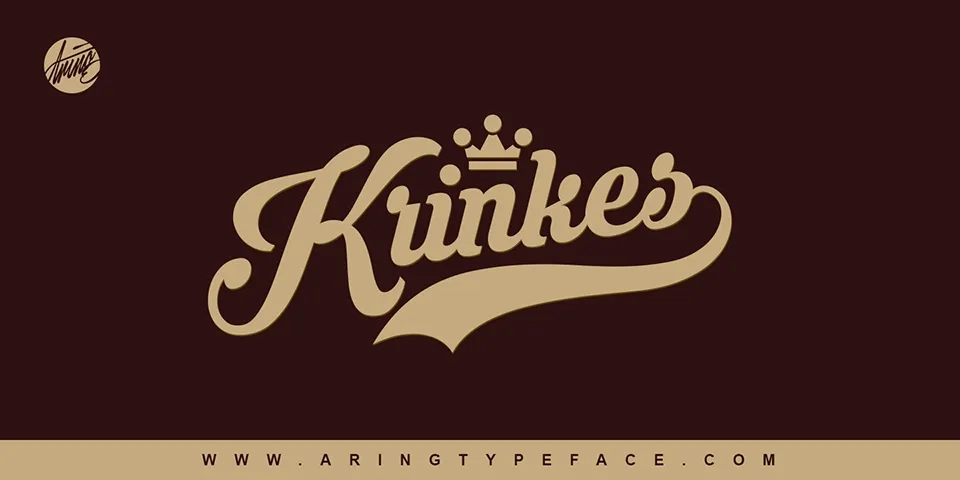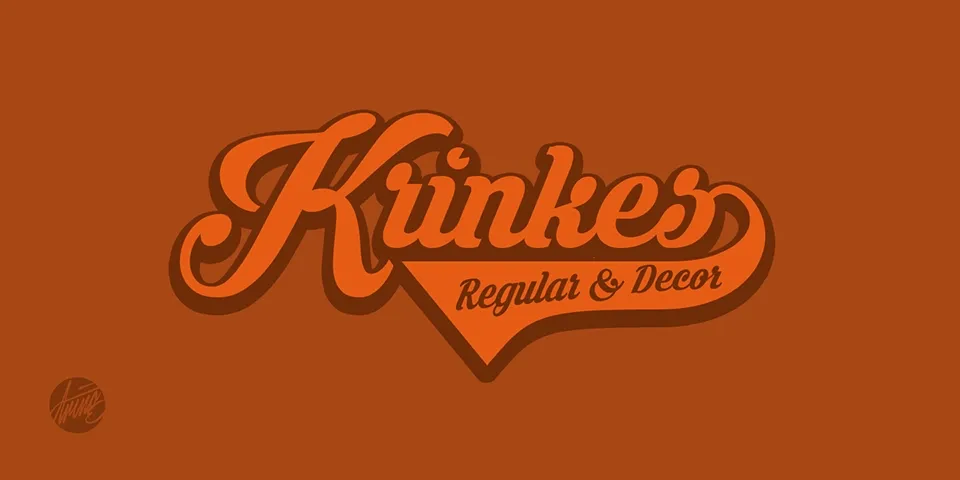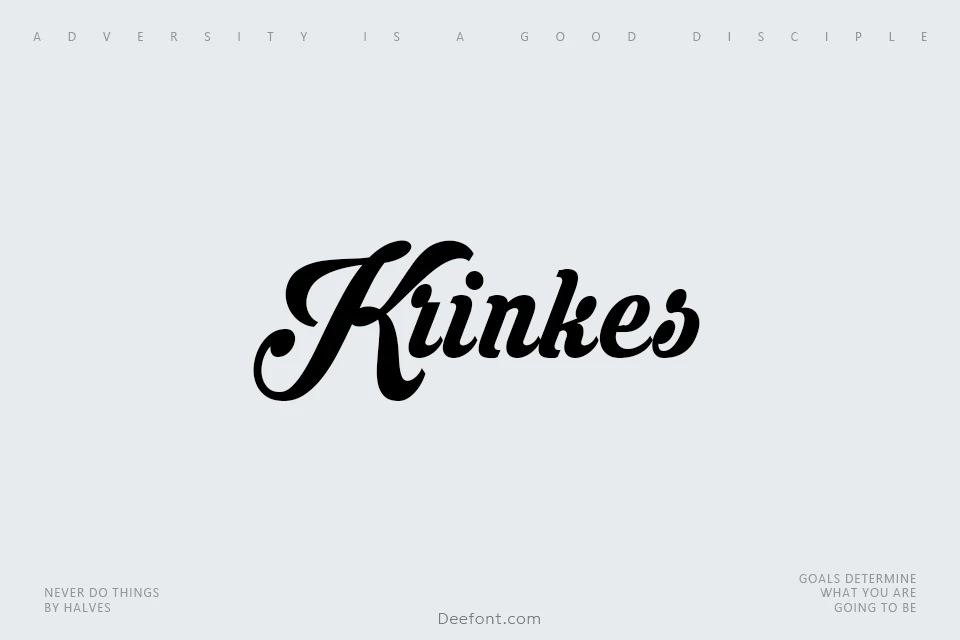
Krinkes Font
Krinkes Font is a vibrant script typeface designed by Måns Grebäck in 2015. It offers two distinct styles: Regular and Decor, with the Decor version featuring large, ornamental capital letters. This elegant, calligraphic typeface adds a touch of class and style, making it perfect as a centerpiece for designs. Krinkes includes swashes, allowing for customization and added flair, often accessible via number keys. It’s well-suited for logos, titles, posters, and branding projects requiring a sophisticated yet eye-catching look. Krinkes is free for personal use only; a commercial license must be purchased for business applications.